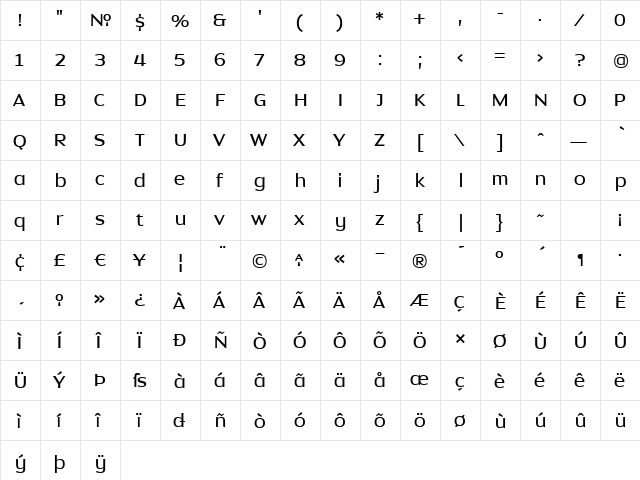
Dynasty Medium Regular
Design Context for Dynasty Medium Typeface
Dynasty Medium offers clean, dependable letterforms without strong stylistic allegiance, making it a practical choice for designers who need flexibility.